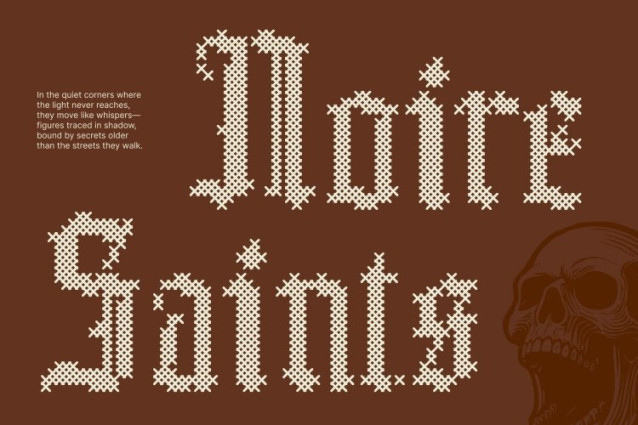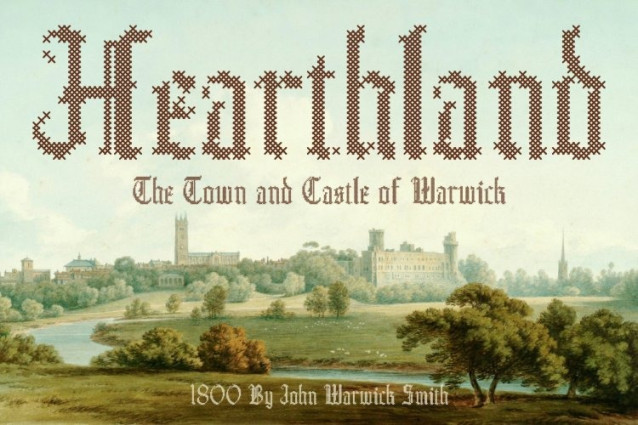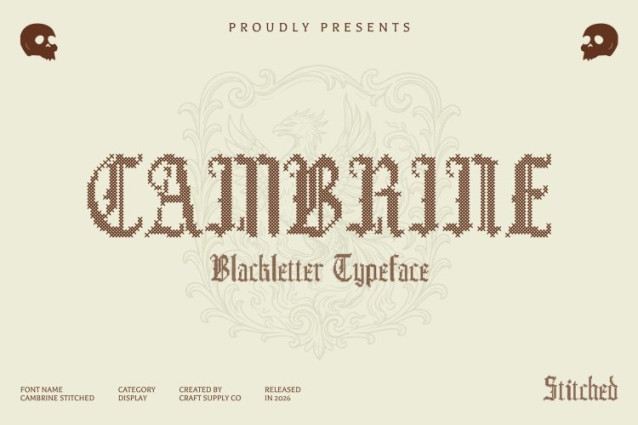
Cambrine Stitched Font This is a modern Blackletter display font that fuses the dramatic, ornamental traits of traditional Gothic typography with clean, bold refinements. Rooted in historical influence yet designed for contemporary relevance, this typeface bridges classic and modern aesthetics. Enhanced with a stitched style inspired by thread sewn or embroidered on fabric, it introduces a handcrafted warmth that adds depth and personality to its bold structure.
Sharp, Assertive Forms with Embossed Stitch Detail
Defined by sharp angles, confident strokes, and subtle ornamental accents, projects strength and individuality. The cross-shaped stitch pattern creates a distinctive embossed and structured texture, delivering a tactile, fabric-like effect. This stitched detailing adds a classic, nostalgic, and relaxed impression while maintaining the font’s assertive Gothic presence.
Versatile for Bold, Artistic, and Craft-Inspired Projects
This is ideal for music posters, alternative branding, fashion logos, packaging, invitations, and experimental creative works that demand a bold yet warm touch. Its unique blend of modern Gothic structure and stitched texture resonates with rebellious, artistic, vintage-modern, and DIY-inspired aesthetics.
Character-Rich and Statement-Making
With its strong visual identity and distinctive stitched finish, creates memorable and impactful designs. Whether used in logos, editorial layouts, promotional materials, clothing labels, or school projects, it delivers a powerful, expressive look that stands out with both dramatic energy and handcrafted charm.